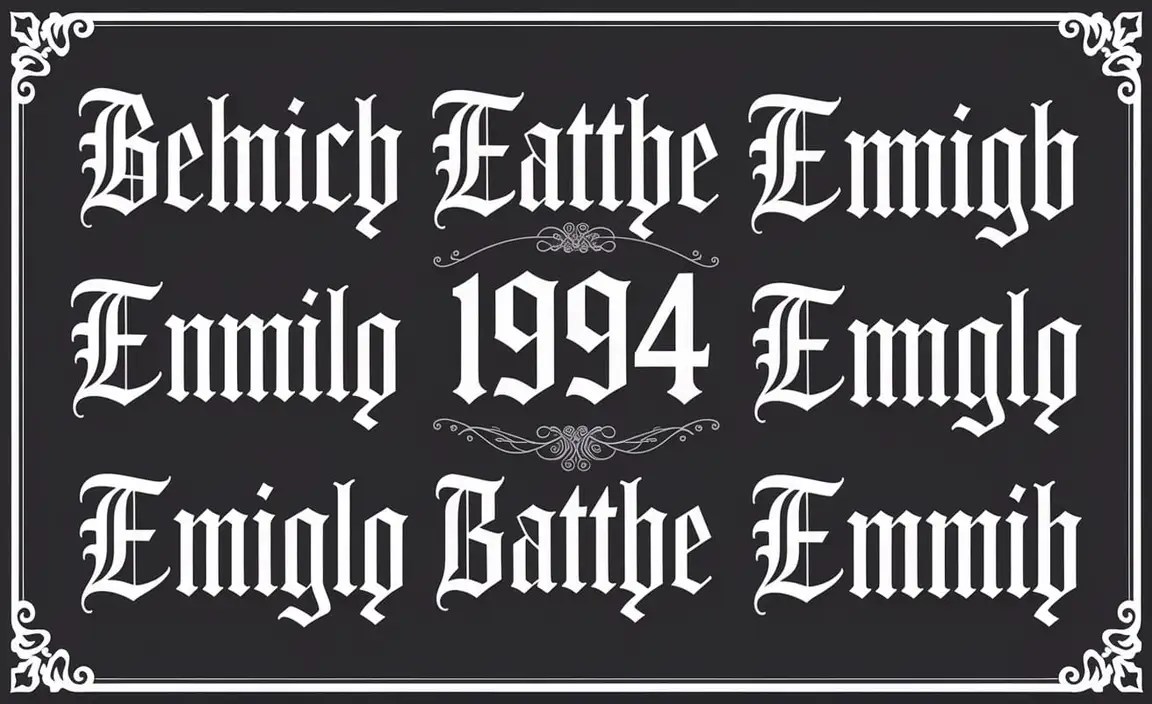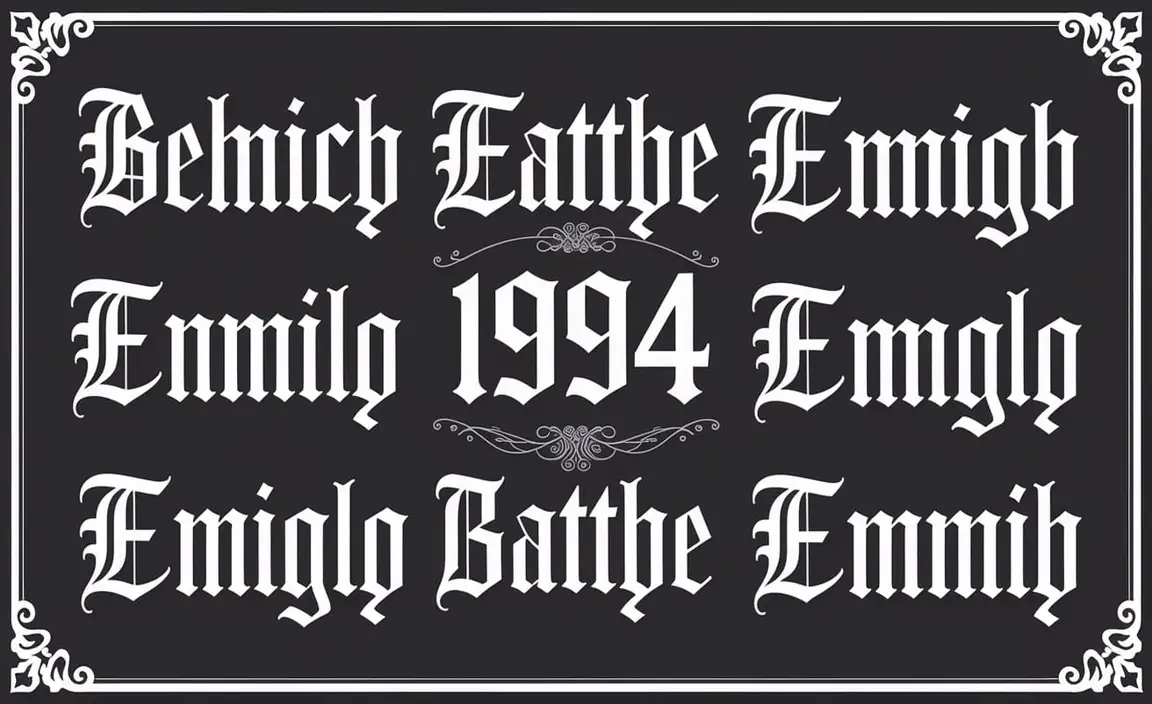
If you want bold text for a statement or an intricate design for a personal reminder, the 1994 font style is a perfect choice. It offers both strength and detail, making it ideal for various tattoo designs. Let’s explore this font’s details, history, uses, and the best tattoo ideas that incorporate it.
What Is The 1994 Tattoo Font Style?
The 1994 tattoo font has a bold, gothic look. It is an Old English-style font, making it perfect for those seeking a vintage or classic feel. This font is characterized by sharp, angular lines and intricate detailing, reminiscent of medieval calligraphy. It brings a sense of strength and history, often used in tattoo designs for names, dates, or powerful quotes.
1994 Tattoo Font Family And Styles
The 1994 font belongs to the “Old English” family. This typeface originated in the 15th century. It gained popularity in the United States during the 1800s.
It includes various styles, ranging from heavy, thick strokes to lighter, more delicate variations. The font is versatile and works in various tattoo styles. It suits large pieces that cover the entire back. It also fits smaller, detailed designs for wrists or ankles.
Who Designed the 1994 Font?
The 1994 font, like many Old English styles, doesn’t have a singular designer attached to it. It belongs to a larger family of fonts inspired by early English printing and handwritten scripts. It shares similarities with various calligraphy styles that date back to the medieval period, contributing to its timeless appeal. The font’s connection to the past gives it a sense of nostalgia, making it particularly popular for tattoos that commemorate specific years, events, or people.
Pairing Options
When choosing the right tattoo design that features the 1994 font, it’s important to consider pairing it with complementary fonts or design elements to create a harmonious overall look. Here are some pairing suggestions:
- Modern Sans-Serif Fonts: Combine the bold and intricate 1994 font with a clean, modern sans-serif font like Helvetica or Arial for a contrast that balances classic and contemporary elements.
- Script Fonts: For a more elegant look, consider pairing 1994 with a script font like Brush Script or Pacifico. The fluid nature of script fonts contrasts beautifully with the rigidity of Old English lettering.
- Serif Fonts: Pairing this font with other serif fonts like Times New Roman or Georgia will create a classic, formal aesthetic that works well for serious or memorial tattoos.
- Handwritten Fonts: To add a personal touch, combine the 1994 font with a handwritten font style. This gives your tattoo a sense of individuality while maintaining a vintage look.
Similar Fonts to 1994 Tattoo Font
If you’re looking for fonts similar to the 1994 tattoo font, consider these alternatives that share the same bold, Gothic aesthetic:
- Blackletter: This font style shares a similar medieval origin, with sharp, dramatic strokes.
- Celtic: A bit more intricate than 1994, Celtic fonts are another great option for those who want a traditional yet artistic look.
- Gothic: Similar to Old English, the Gothic font family has deep roots in the same historical period and offers similarly bold, structured lines.
Where to Use the 1994 Tattoo Font Style
The 1994 tattoo font style works well for a variety of tattoo placements. Here are some of the best areas to showcase this powerful font:
- Back: A large tattoo on your back can carry the grandeur of the 1994 font, allowing the detailed, bold lettering to stand out.
- Forearm: A forearm tattoo is another popular spot for this font. Its legibility in this area works well for quotes or significant dates, particularly if you’re looking for something eye-catching.
- Chest: Use the 1994 font for a strong statement piece across the chest, with a person’s name or a symbolic phrase.
- Neck: This is an ideal location for smaller 1994 tattoos that are still impactful. The design could work for a meaningful date or a short phrase that expresses a strong sentiment.
- Ribs: The ribs are a common location for longer quotes or words that need extra space, and the 1994 font adds a gothic, deep impact to these words.
Popular Tattoo Ideas Using the 1994 Font
- Memorial Tattoos: For those who have lost loved ones, a date written in 1994 font can be a lasting tribute. The Old English style lends a sense of respect and timelessness to the design, making it perfect for memorial tattoos.
- Names or Initials: The 1994 tattoo font is an excellent choice for names, whether it’s a tribute to a loved one or a simple representation of a significant person in your life.
- Inspirational Quotes: The boldness of this font makes it a great choice for tattooing motivational or meaningful quotes. A phrase like “Live Free” or “Never Give Up” looks particularly impactful in the 1994 font.
Popular ideas include memorial dates, names, inspirational quotes, and gothic designs.
Where Can I Use The 1994 Tattoo Font?
You can use the 1994 font on your back, forearm, chest, neck, or ribs for a bold, striking tattoo.
Does The 1994 Font Work Well With Other Fonts?
Yes, pairing it with modern sans-serif, script, or handwritten fonts can add contrast and enhance your tattoo’s design.
What’s The Best Color For Tattoos With The 1994 Font?
Black is the most popular color, as it emphasizes the boldness and details of the 1994 font.